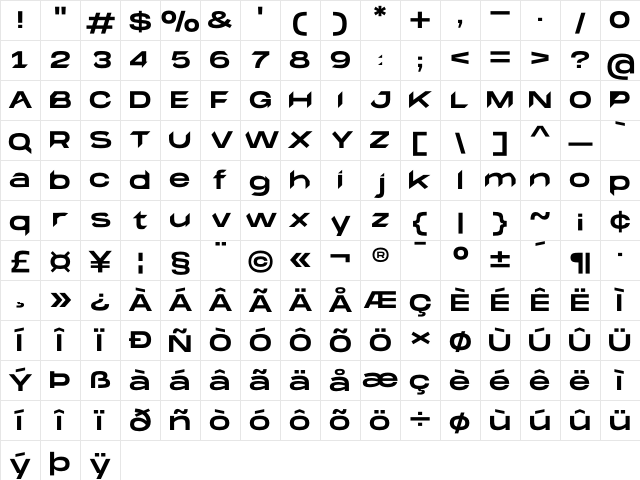
Complete Massedi Regular glyph index. Displaying only characters natively supported by Massedi Regular font.
Massedi is a composed and adaptable typeface that performs quietly and consistently across a wide range of design contexts.